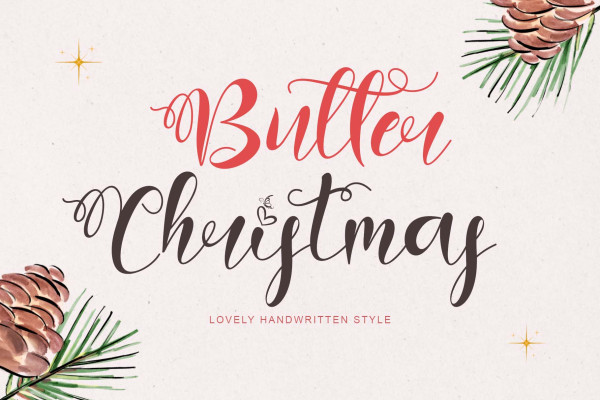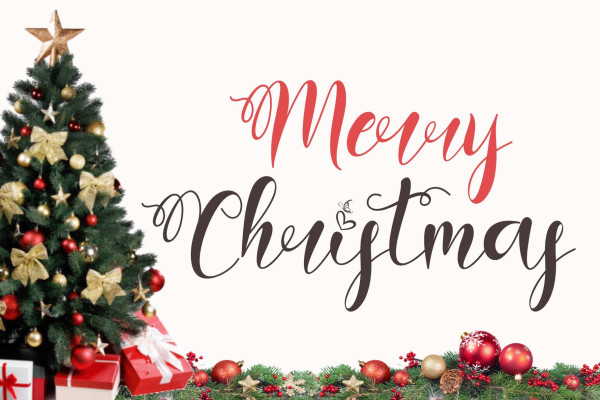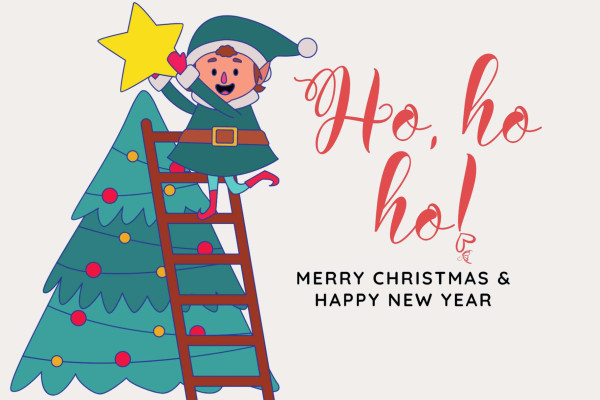
Butter Christmas Font
Butter Christmas Font is a very pretty handwritten font. It is suitable for Christmas, Valentine’s, back-to-school, winter, autumn, birthdays, weddings, engagements, and more. Add this font to your favorite creative ideas and see the results!